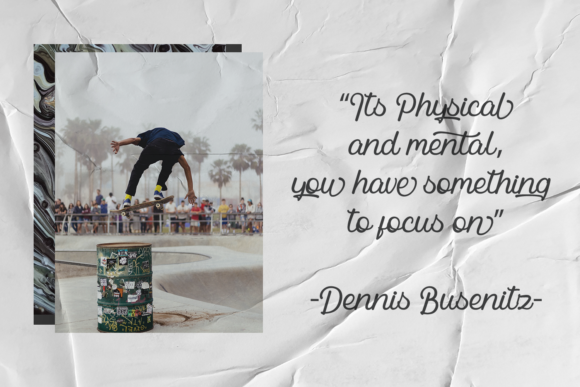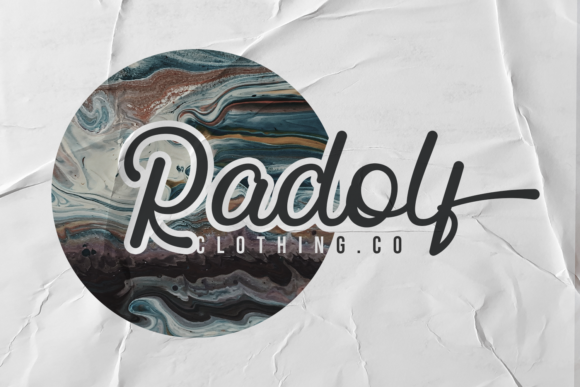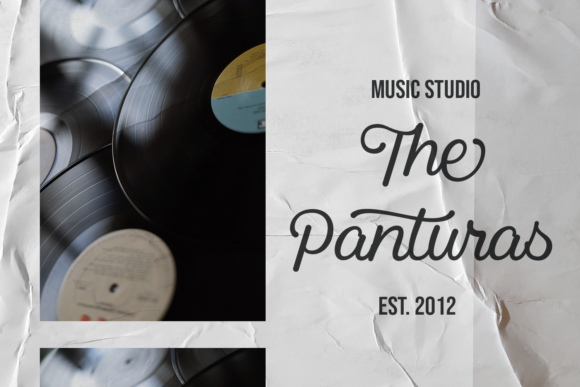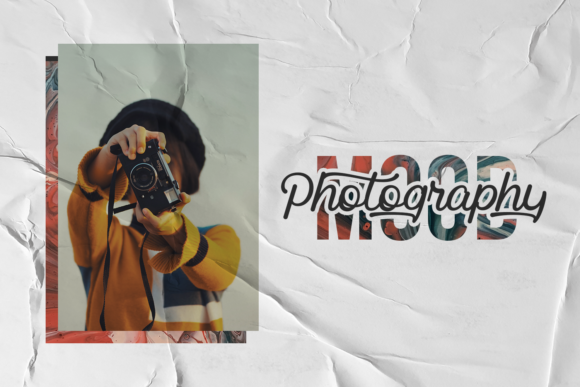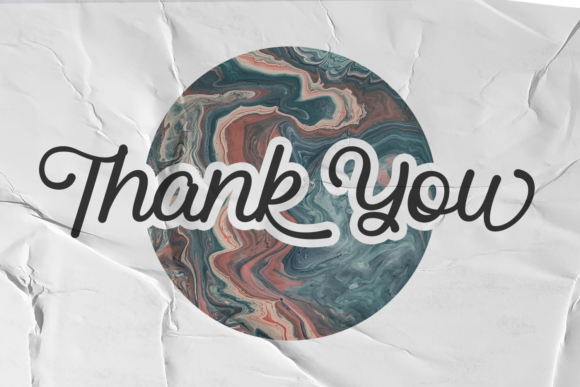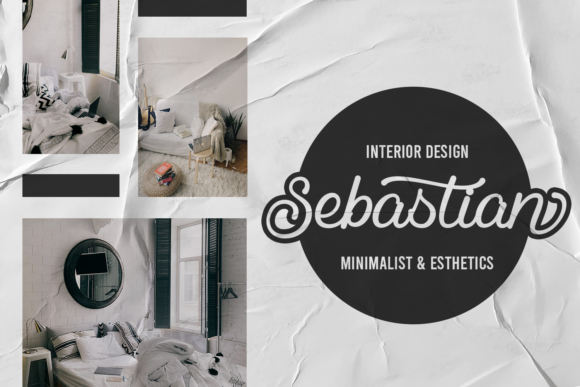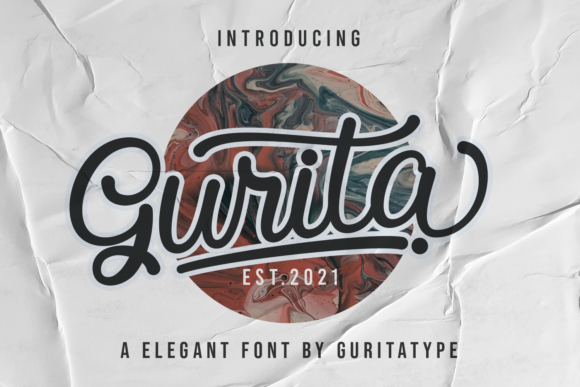
Gurita Font: Elevate Your Craft Designs with a Spectacular Handwritten Style
Are you a designer or crafter looking for a unique and beautiful font to add a personal touch to your creations? Look no further than Gurita Font, a stunning handwritten font that’s simple, easy to use, and perfect for a wide range of craft designs. In this article, we’ll dive into the features and benefits of Gurita Font, and explore how it can elevate your designs to the next level.
A Beautifully Crafted Handwritten Font
Gurita Font is a spectacular handwritten font that’s been carefully crafted to bring a touch of elegance and sophistication to your designs. With its smooth, flowing lines and delicate curves, this font is perfect for creating beautiful and eye-catching titles, headings, and text. Whether you’re designing a greeting card, a craft tutorial, or a social media graphic, Gurita Font is sure to impress.
One of the standout features of Gurita Font is its simplicity. Unlike some fonts that can be over-the-top or difficult to read, Gurita Font is easy to use and understand, making it perfect for designers and crafters of all skill levels. Additionally, the font is highly versatile, and can be used for a wide range of design projects, from paper crafting and sewing to baking and DIY tutorials.
PUA Encoded for Easy Access to Glyphs and Swashes
Another major benefit of Gurita Font is that it’s PUA (Private Use Area) encoded, which means you can access all of the glyphs and swashes with ease. For designers and crafters, this is a major advantage, as it allows you to add extra flair and personality to your designs without having to worry about complicated font editing software.
With Gurita Font, you can easily access a range of alternative characters, ligatures, and swashes, which can be used to add visual interest and creativity to your designs. Whether you want to create a beautiful wedding invitation, a fun and playful party banner, or a professional-looking business card, Gurita Font gives you the flexibility and creative freedom to do so.
Perfect for Mixing and Matching with Other Fonts
One of the best things about Gurita Font is that it’s designed to be mixed and matched with other fonts. Whether you’re using a bold and chunky font or a delicate and elegant script, Gurita Font pairs beautifully with a wide range of typefaces, making it easy to create stunning and unique designs.
For example, you could pair Gurita Font with a bold and modern sans-serif font to create a striking contrast between the two. Alternatively, you could use Gurita Font alongside a delicate and ornate script font to create a beautiful and feminine design. The possibilities are endless, and the versatility of Gurita Font makes it easy to experiment and find the perfect combination for your project.
Tips and Tricks for Using Gurita Font
So, how can you get the most out of Gurita Font? Here are a few tips and tricks to keep in mind:
• Experiment with different font sizes and styles to add visual interest to your designs.
• Use Gurita Font to create beautiful headings and titles, and pair it with a simpler font for body text.
• Take advantage of the PUA encoding to access glyphs and swashes, and use them to add extra flair to your designs.
• Don’t be afraid to mix and match Gurita Font with other fonts to create unique and eye-catching designs.